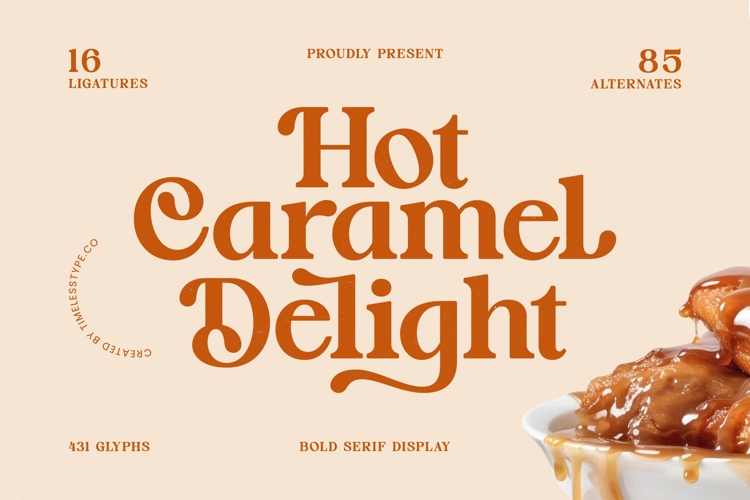
Hot Caramel Delight - Bold Serif Font
Command attention and leave a lasting impression with Font Hot Caramel Delight - Bold Serif Font Serif Display, a typeface meticulously crafted to exude both vintage charm and contemporary sophistication. Its distinctive bold presence and high-contrast serifs deliver an aesthetic that is robust and inherently elegant. Perfect for projects demanding luxurious appeal, this font transforms text into an extraordinary visual statement, captivating audiences with its refined curves.
Unlock unparalleled design versatility with Font Hot Caramel Delight - Bold Serif Font Serif Display, an essential asset for diverse creative endeavors. It is perfectly suited for luxury branding, upscale packaging, sophisticated editorial design, and creating truly impactful headlines or distinctive logotypes. Featuring 16 ligatures and 85 alternates across 431 glyphs, this font offers abundant options for unique customization and achieving bespoke typographic compositions.